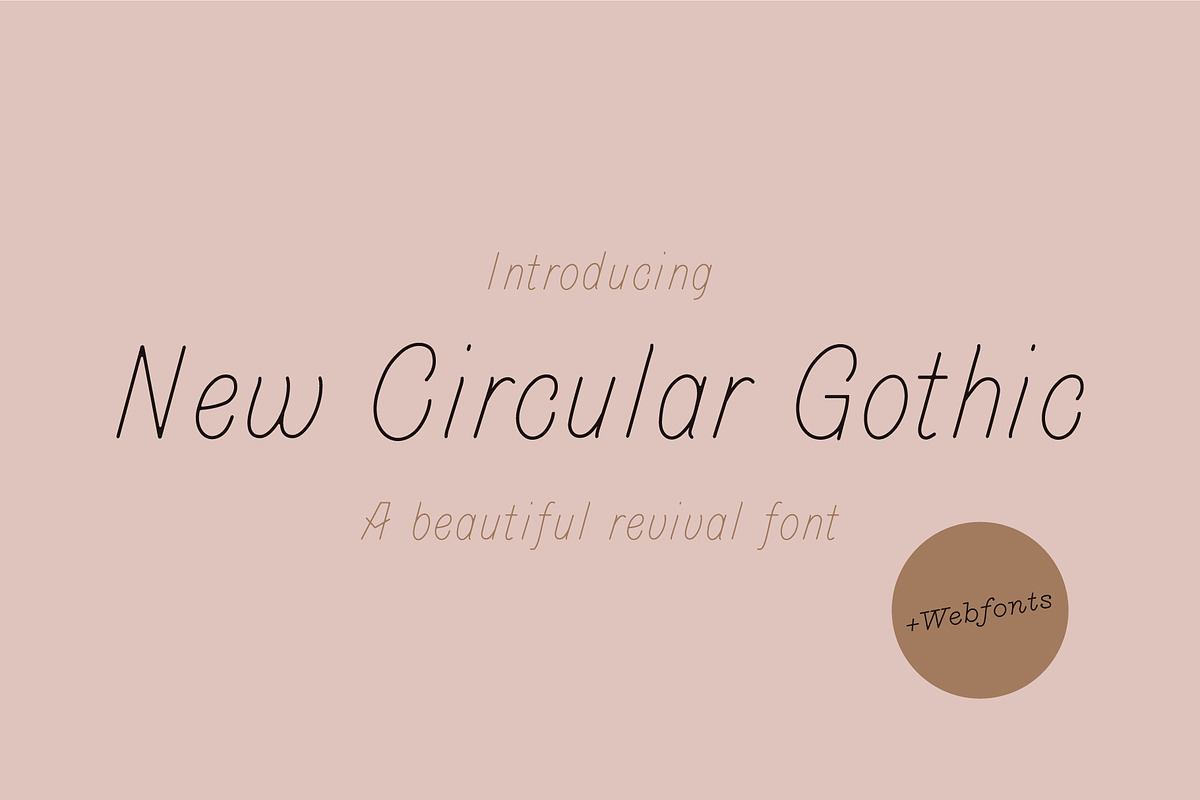
Revival Font – New Circular Gothic Font Free Download is a modern reinterpretation of classic gothic styles, blending the timeless charm of traditional type with clean, circular geometry. Ideal for editorial design, branding, packaging, book covers, and modern identity work, this font strikes a balance between vintage structure and contemporary minimalism.
With its smooth curves, sharp contrasts, and subtle gothic influence, Revival Font – New Circular Gothic Font Free Download brings character and sophistication to any layout. It’s especially suited for fashion, music, art, and high-end design projects where bold elegance is key.